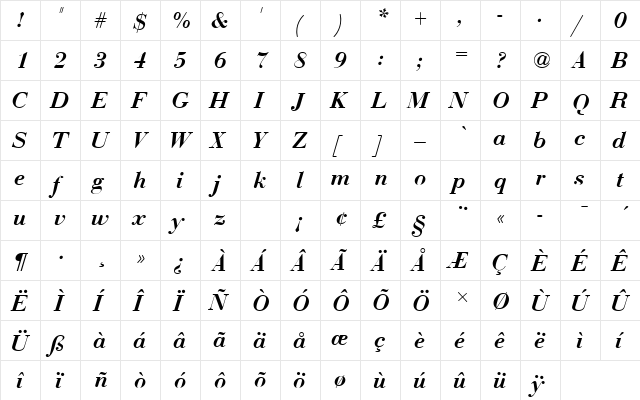
BauerBodDDemBolItaRo1 Regular
Design Context for BauerBodDDemBolItaRo1 Typeface
BauerBodDDemBolItaRo1 is a composed and adaptable typeface that performs quietly and consistently across a wide range of design contexts.